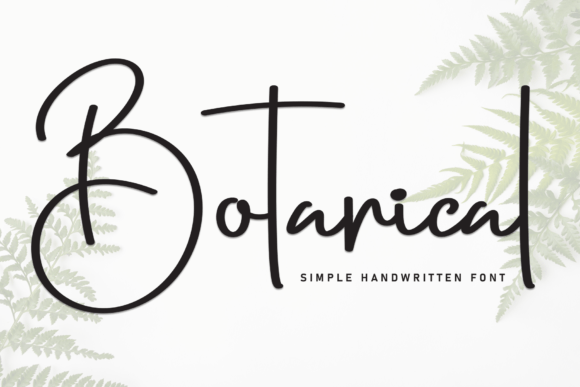
Journey into the realm of captivating creativity with Botanical Font, a script font family that will ignite your designs with a touch of elegance and charm. This exquisite font, meticulously crafted by the talented andikastudio, embodies the essence of nature's allure, intertwining the beauty of handwritten strokes with a modern, sophisticated flair.
Botanical Font is not just a collection of letters; it's an invitation to unleash your imagination and transform your creative visions into tangible masterpieces. Its organic, flowing lines evoke a sense of tranquility, while its meticulously crafted details add a touch of sophistication to your designs.
With Botanical Font as your creative companion, you'll discover a world of endless possibilities. It's the perfect font for crafting logos that exude elegance and charm, creating eye-catching social media graphics that captivate your audience, and designing wedding invitations that radiate romance and joy.
Botanical Font's versatility extends beyond the digital realm; it also shines in the world of print. Imagine the impact of your business cards, brochures, and posters when adorned with this stunning font. Its natural, handwritten style adds a personal touch that resonates with your audience, creating a connection that goes beyond words.
But Botanical Font is more than just a beautiful font; it's a gateway to a world of emotions and experiences. Its gentle curves and graceful strokes evoke a sense of nostalgia, reminding us of the beauty and simplicity of handwritten letters. It's a font that speaks to the heart, creating designs that resonate with your audience on a deeper level.
If you seek a font that encapsulates the essence of nature, elegance, and emotional connection, look no further than Botanical Font. Its versatility and timeless beauty make it the perfect choice for designers of all levels, from creative professionals to passionate hobbyists.
Embrace the allure of Botanical Font today and embark on a creative journey like never before. Let your imagination bloom and transform your designs into works of art that captivate and inspire.